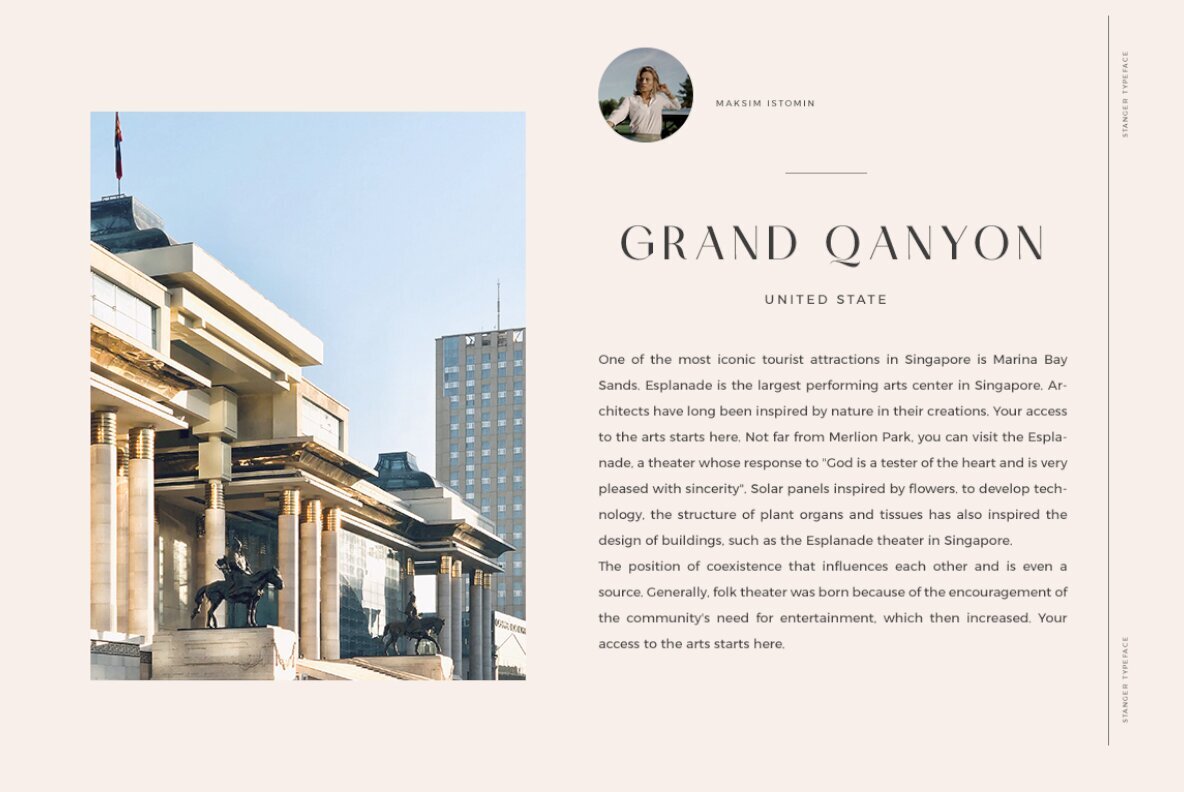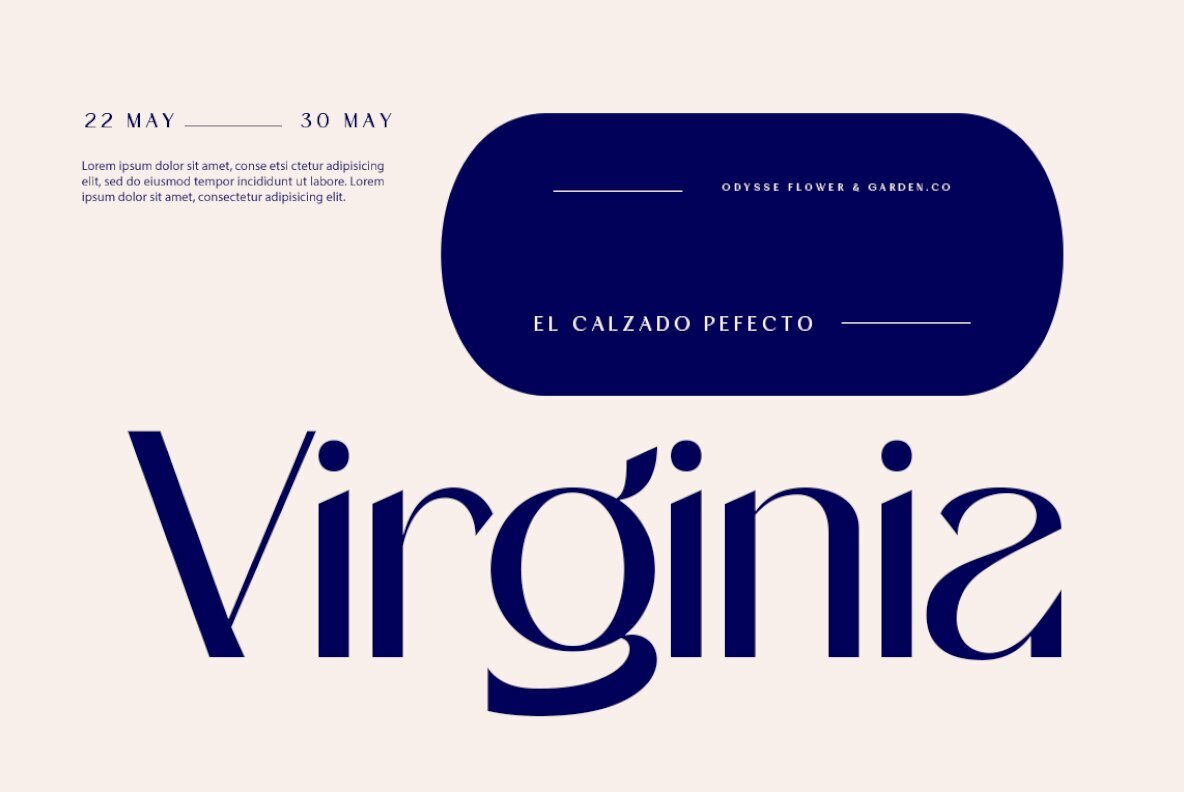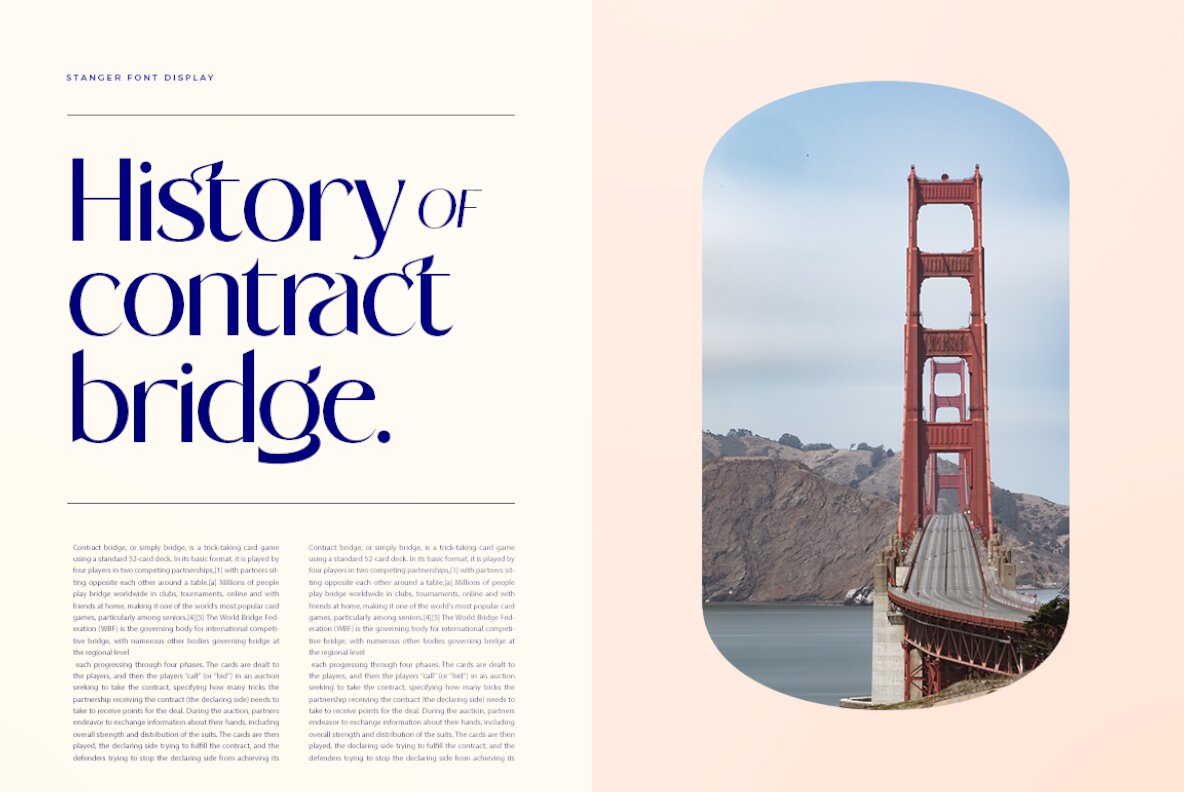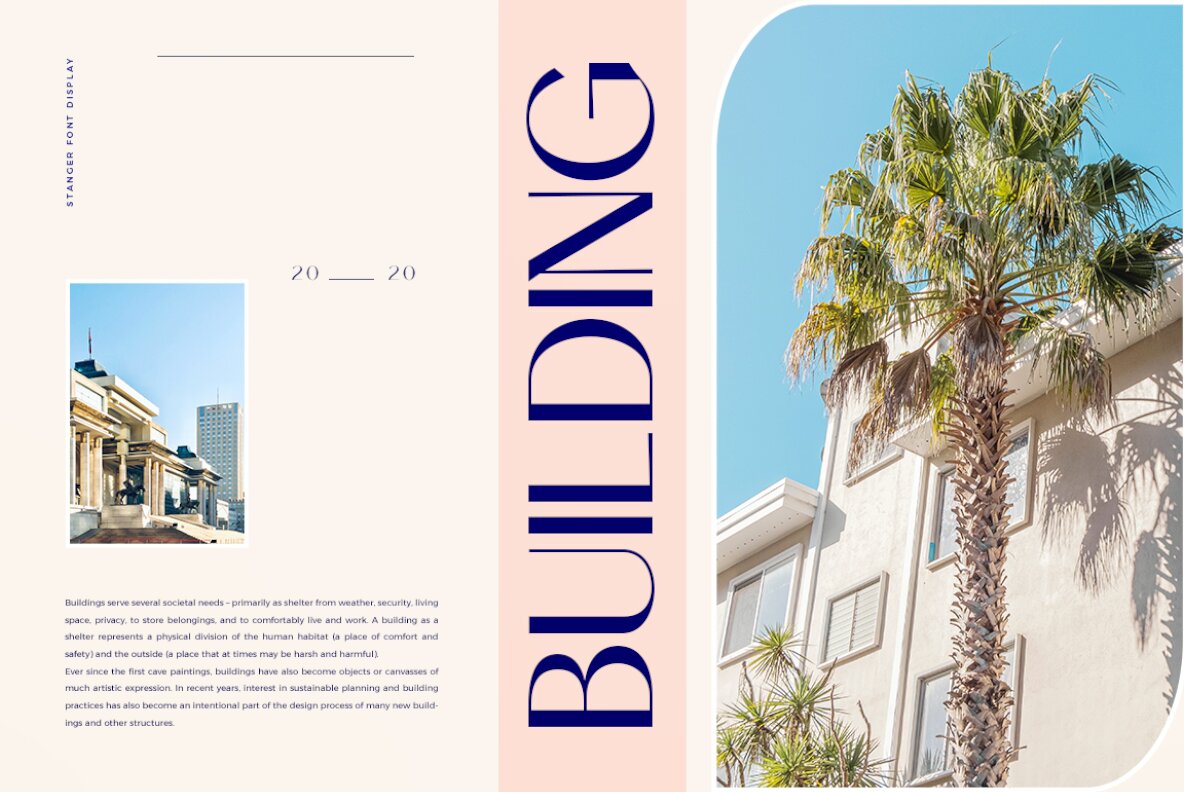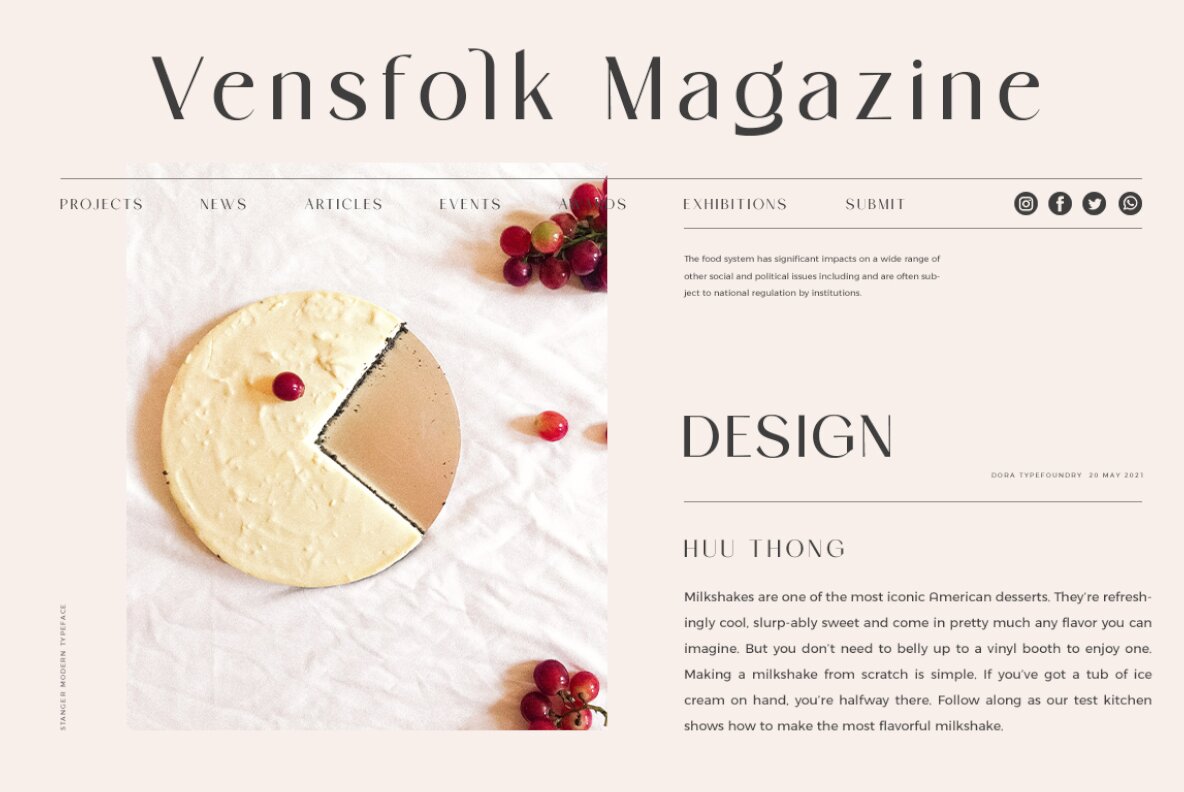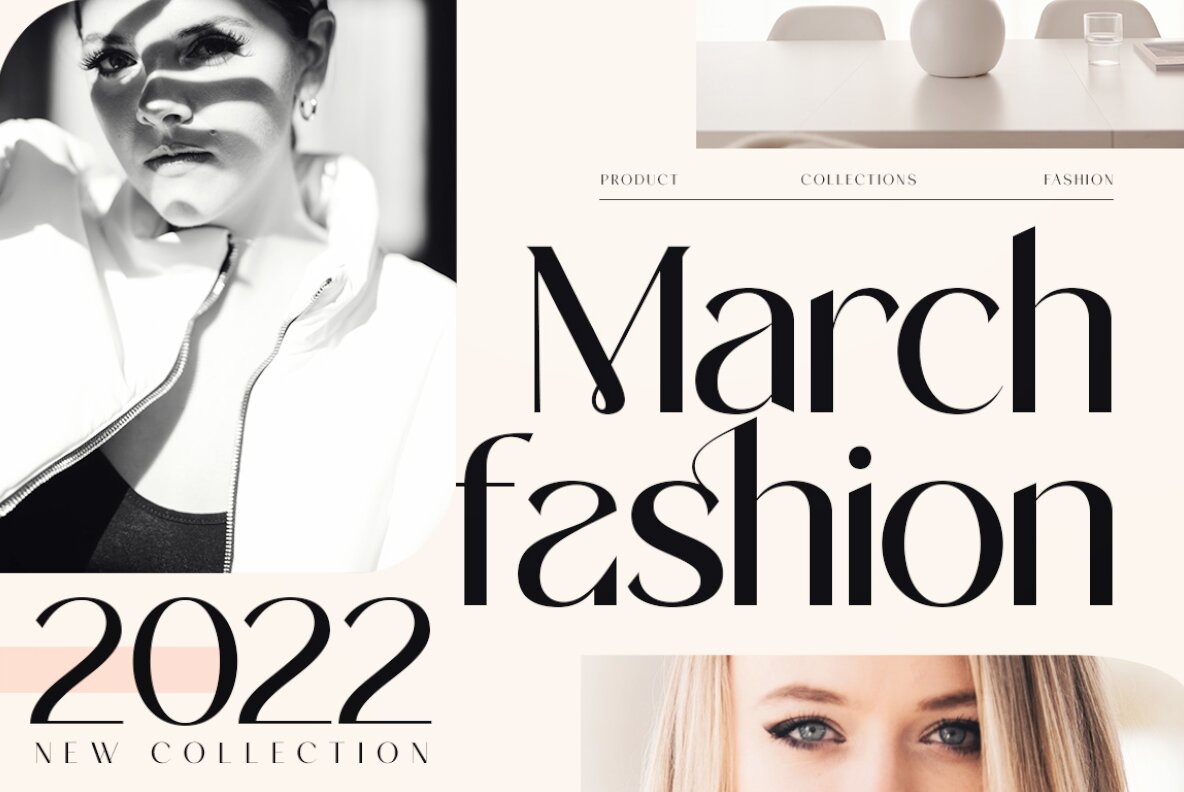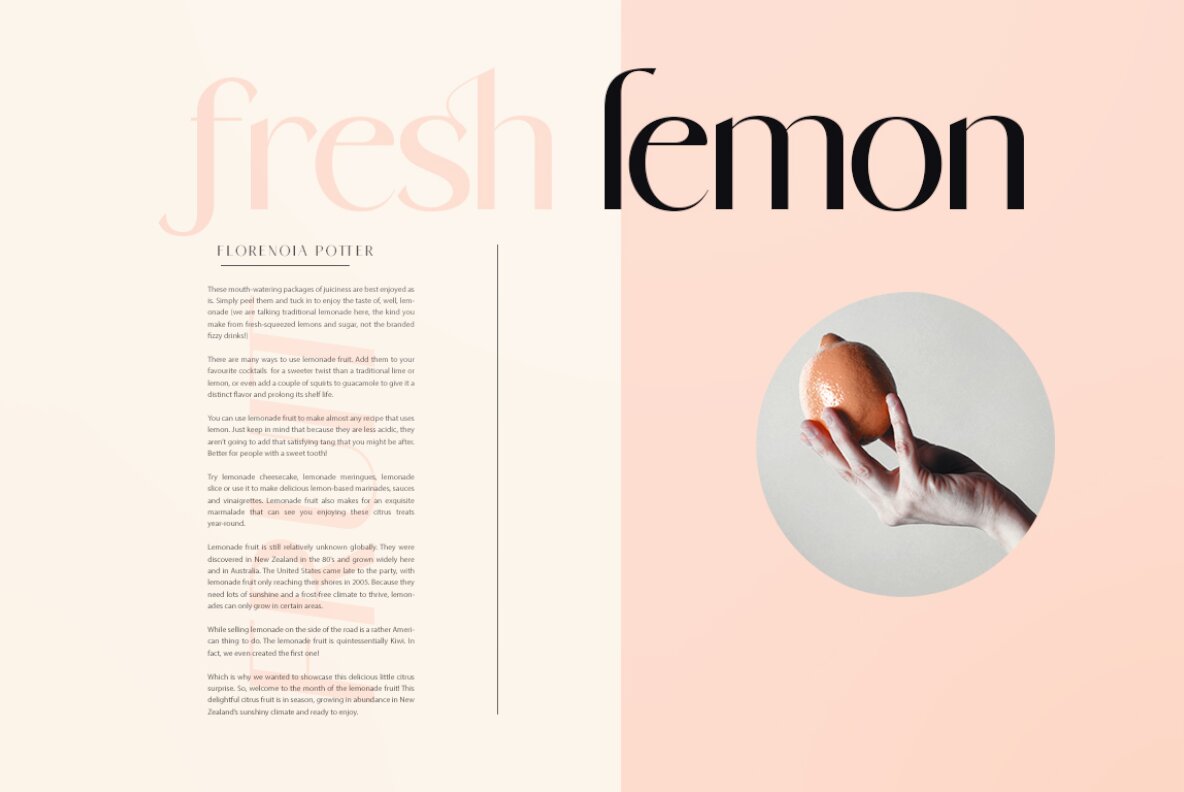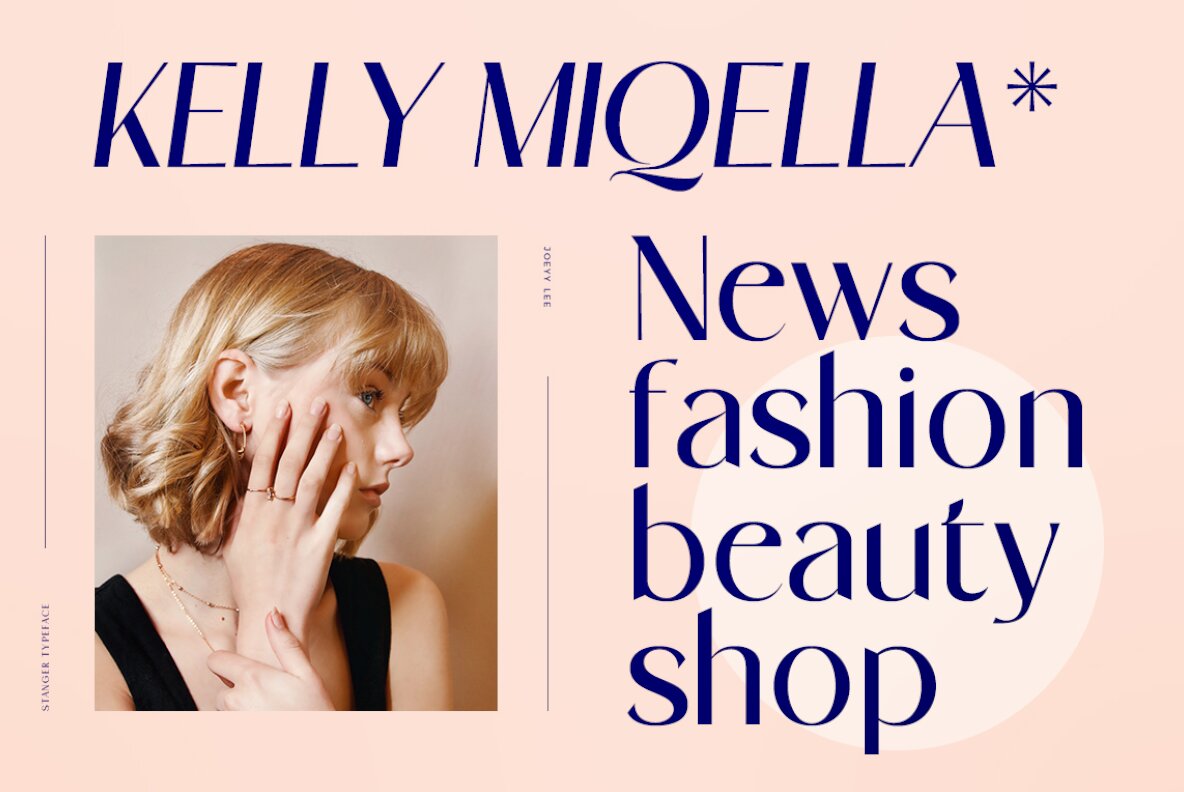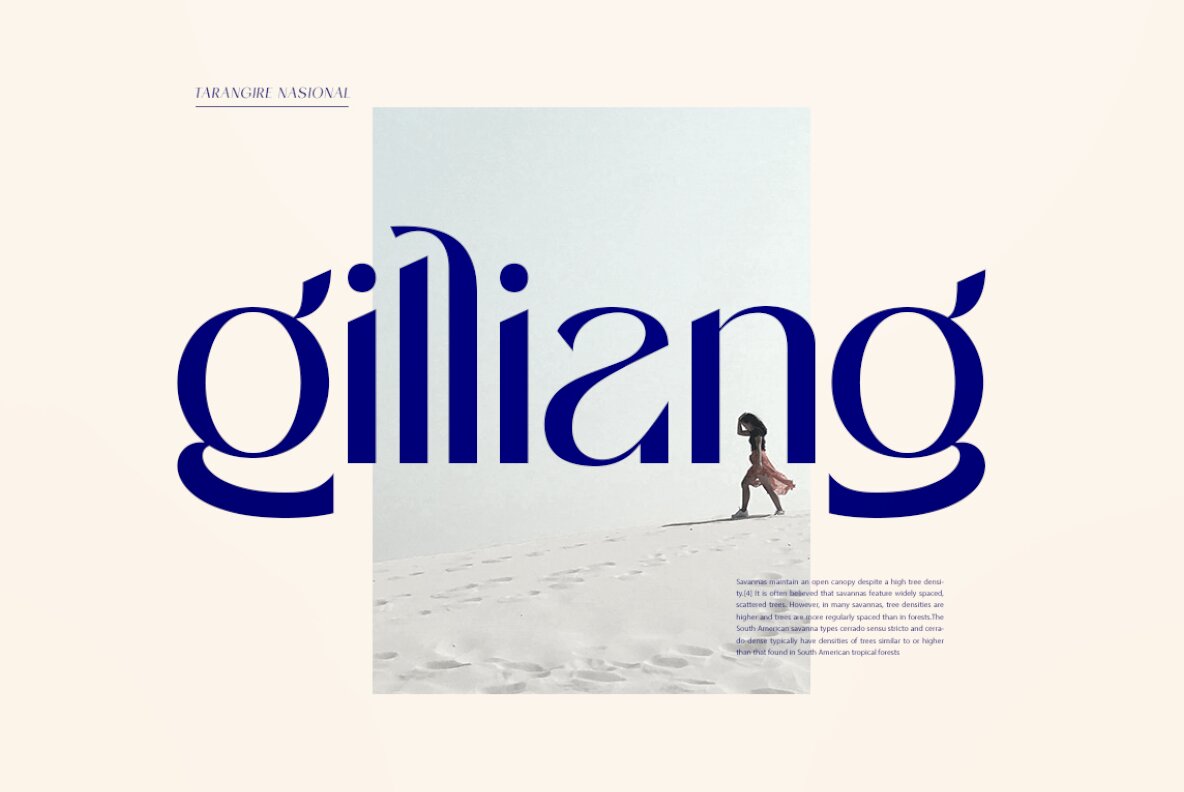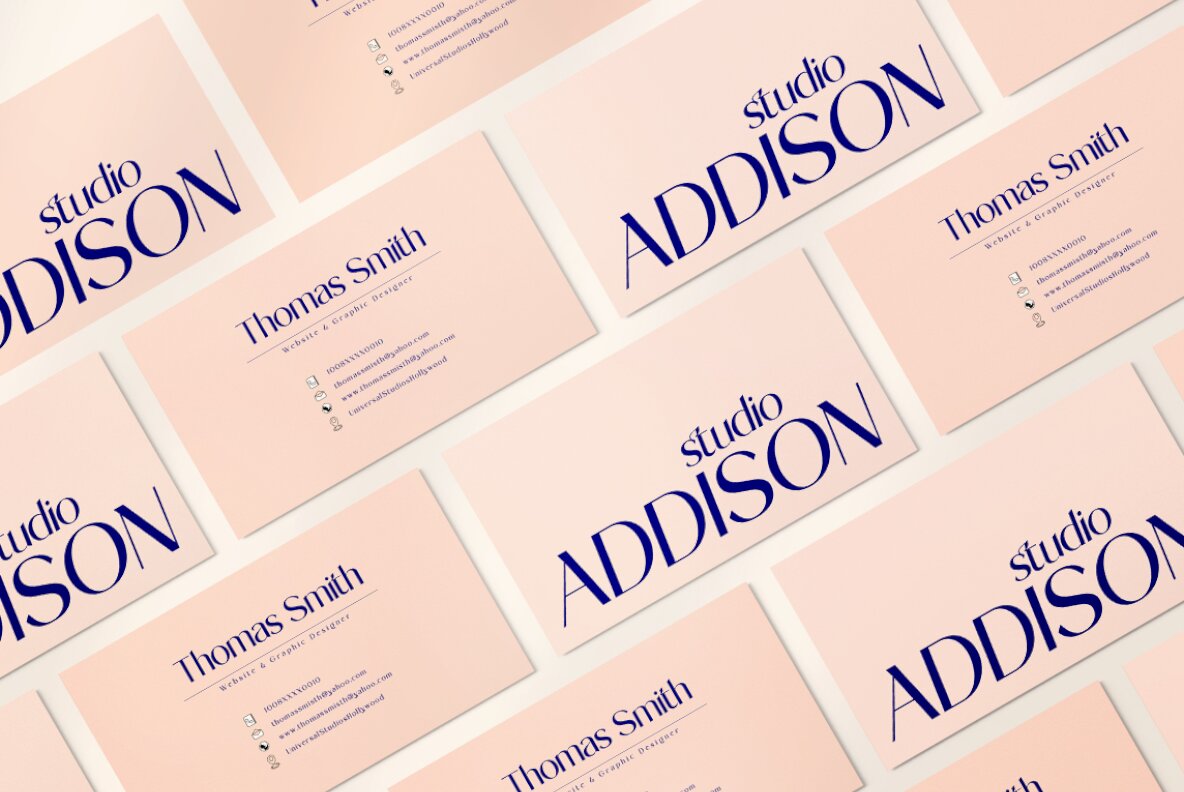
Stanger Font
Stanger - a sans serif look with simple, clean and visual elegance with smooth curves and beautiful ligatures, A very versatile font that works in both large and small sizes. This font is suitable for a wide variety of projects such as: headlines, logos, labels, branding projects, magazines, homeware designs, product packaging, mugs, quotes, posters, and more. It can also be more expressive and fun, thanks to the many alternatives and binders that combine harmoniously in this font and make it more interesting and versatile. Try to change alternatives, binders and you will get many options for your project which will make it bold & beautiful.
Full set of uppercase, lowercase
Ligatures
Alternative
A wide variety of numbers, symbols & punctuation
Characters with accents
Support Multiple Languages